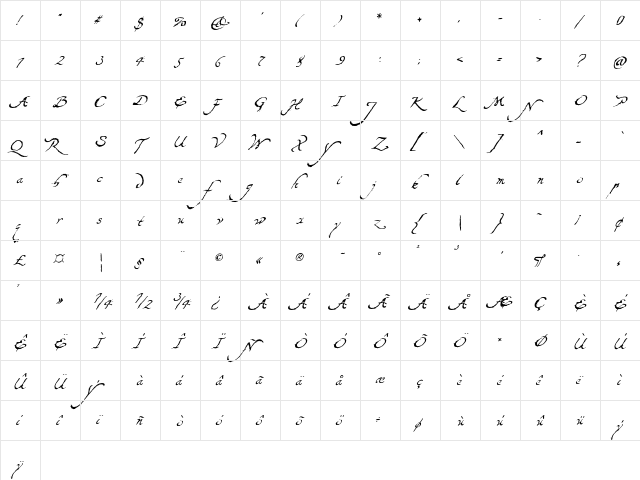
Majidah Regular
| Foundry | Jeremy Dooley |
Design Context for Majidah Typeface
Majidah is a composed and adaptable typeface that performs quietly and consistently across a wide range of design contexts.